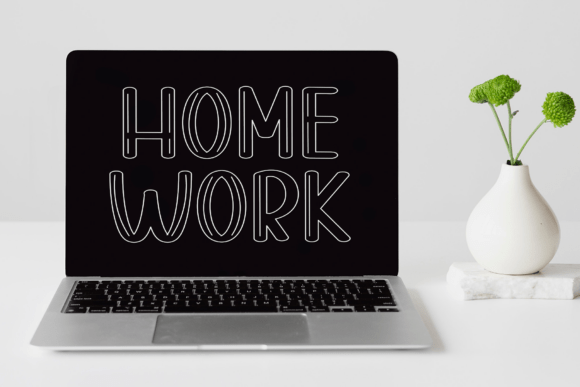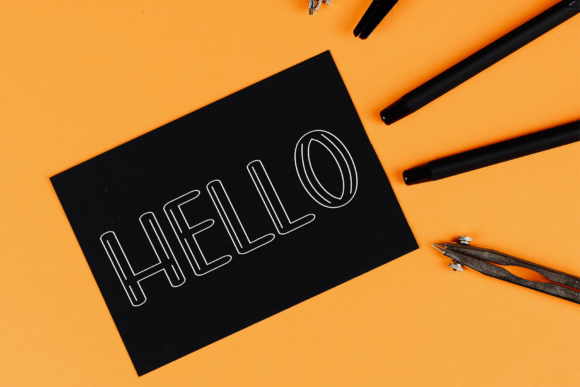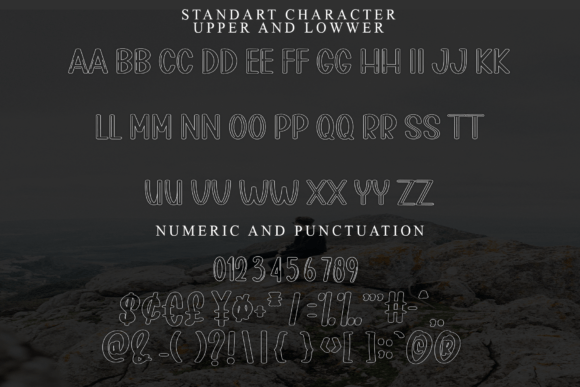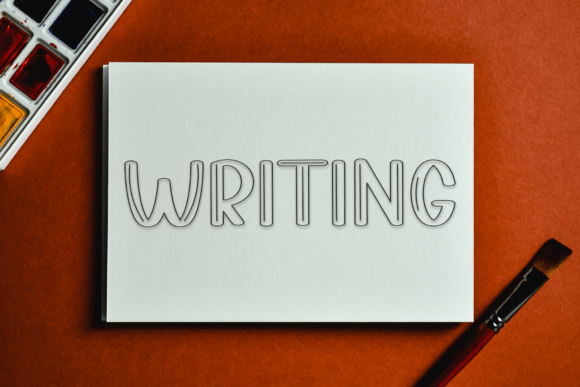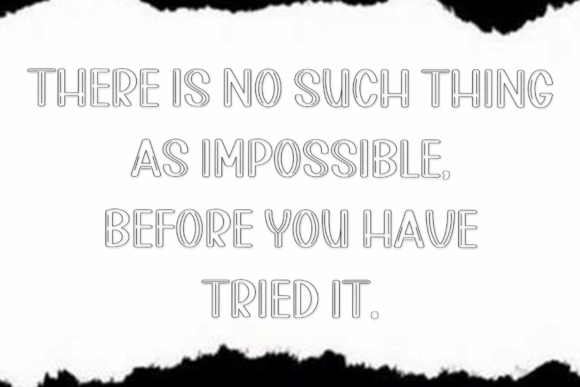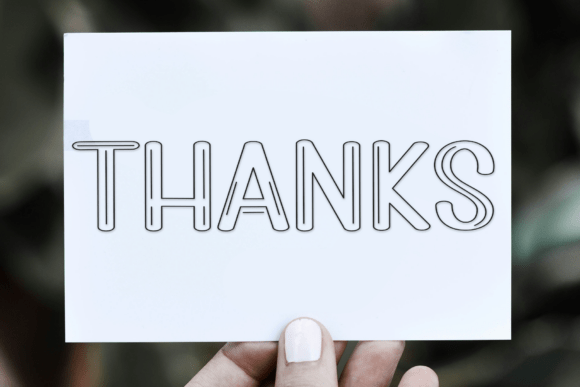
Unleashing Your Creativity with the Perfect Font
Have you ever found yourself staring at a blank canvas, pencil in hand, searching for the perfect font to bring your design to life? The struggle is real, but what if I told you that there’s a font that can make your creative process a whole lot easier? Enter the beautiful and eye-catching Drawing Handmade Font Font, designed with a soft, unique touch that will make your designs stand out from the crowd.
With its distinctive strokes and wide range of characters, Drawing Handmade Font Font is perfect for designers who want to add a personal touch to their projects. Whether you’re working on a design project, crafting a unique piece of art, or simply looking to enhance your digital creations, this font is sure to deliver.
Drawing Handmade Font Font Key Features
- Unique Characteristics: Handmade, hand-drawn design with unique imperfections and textures, adding a touch of personality to any text
Review: Drawing Handmade Font Font
I recently had the chance to play around with the Drawing Handmade Font Font, and I must say it’s a unique and charming font. ✨ I love the hand-drawn feel, it adds a touch of warmth and personality to any design.
- ✨ Unique and playful feel that’s perfect for creative projects
- ✨ Works well for headings and titles due to its large x-height
- ✨ Includes a wide range of characters and symbols, making it suitable for various languages
However, there are some limitations:
- ⚠️ Not ideal for body text due to its irregular spacing and letterforms
- ⚠️ May require adjustments in font size and line height to achieve optimal readability
Overall, I think the Drawing Handmade Font Font is a great choice for designers who want to add some personality to their projects. While it may not be suitable for every design task, it’s a great option for creative and playful projects. With some careful planning and adjustments, it can add a unique touch to your designs.
The Drawing Handmade Font Font is perfect for:
- Creating handmade-style designs.